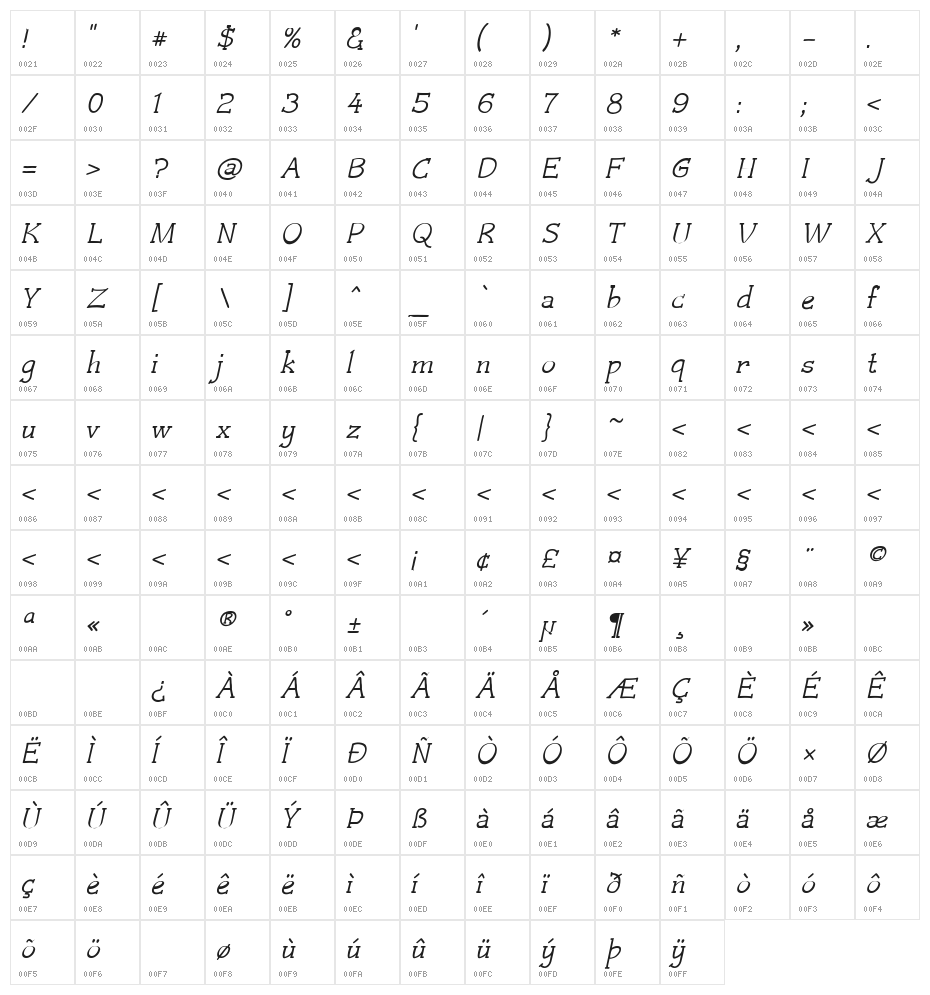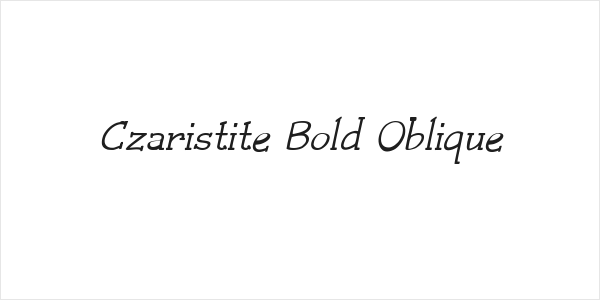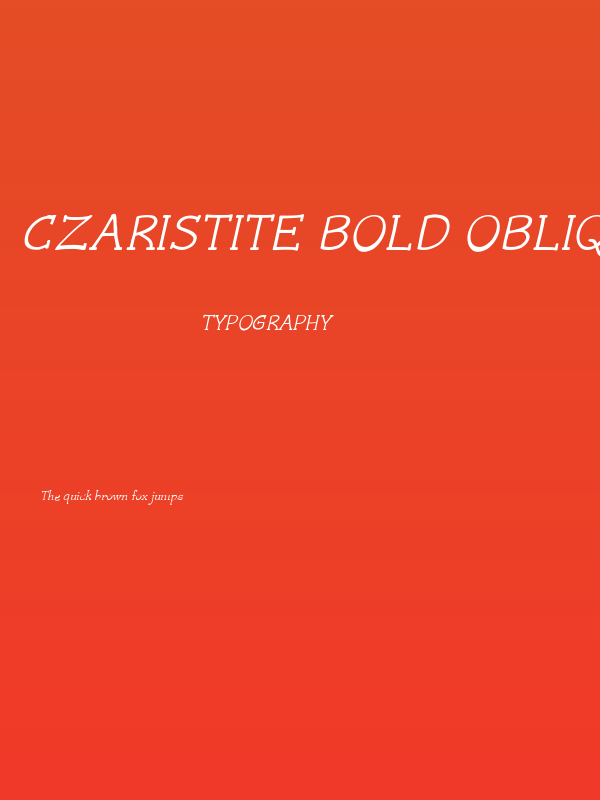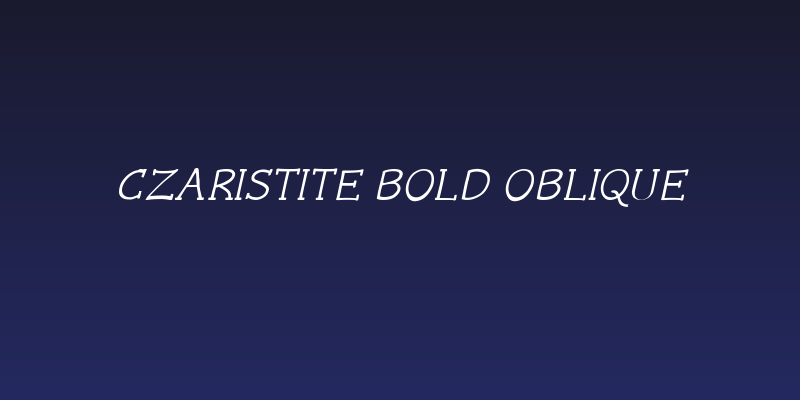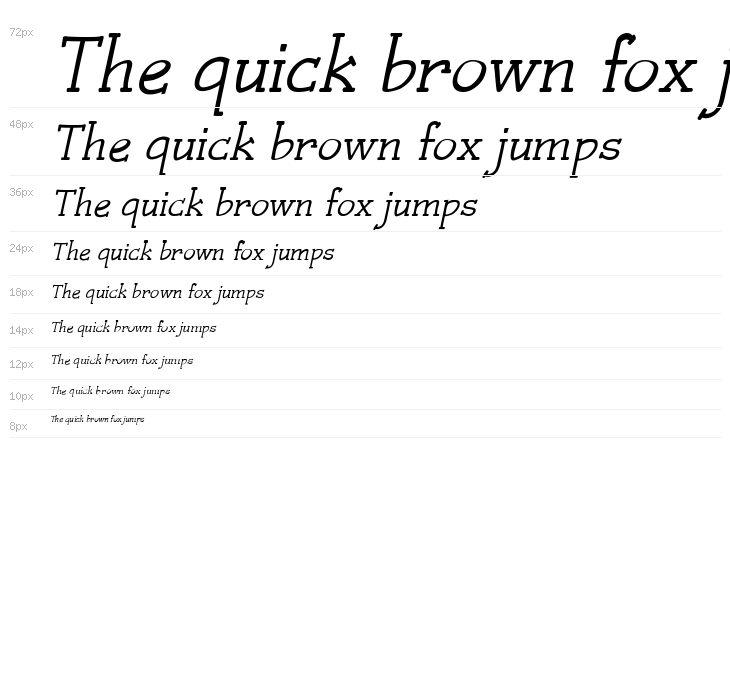
Czaristite Bold Oblique Font
Czaristite Bold Oblique Description
This font features a bold and oblique style, characterized by its slanted and robust letterforms. The uppercase letters exhibit a strong presence with a slight forward tilt, while the lowercase letters maintain a consistent slant, enhancing the dynamic appearance. The numerals are clear and bold, ensuring readability. Special characters are well-defined, complementing the overall aesthetic. The font's design is suitable for creating impactful and elegant text, offering a blend of traditional and modern elements.
| Proposed Projects | Ideal for branding, headlines, posters, and editorial design where a strong and stylish impact is desired. |